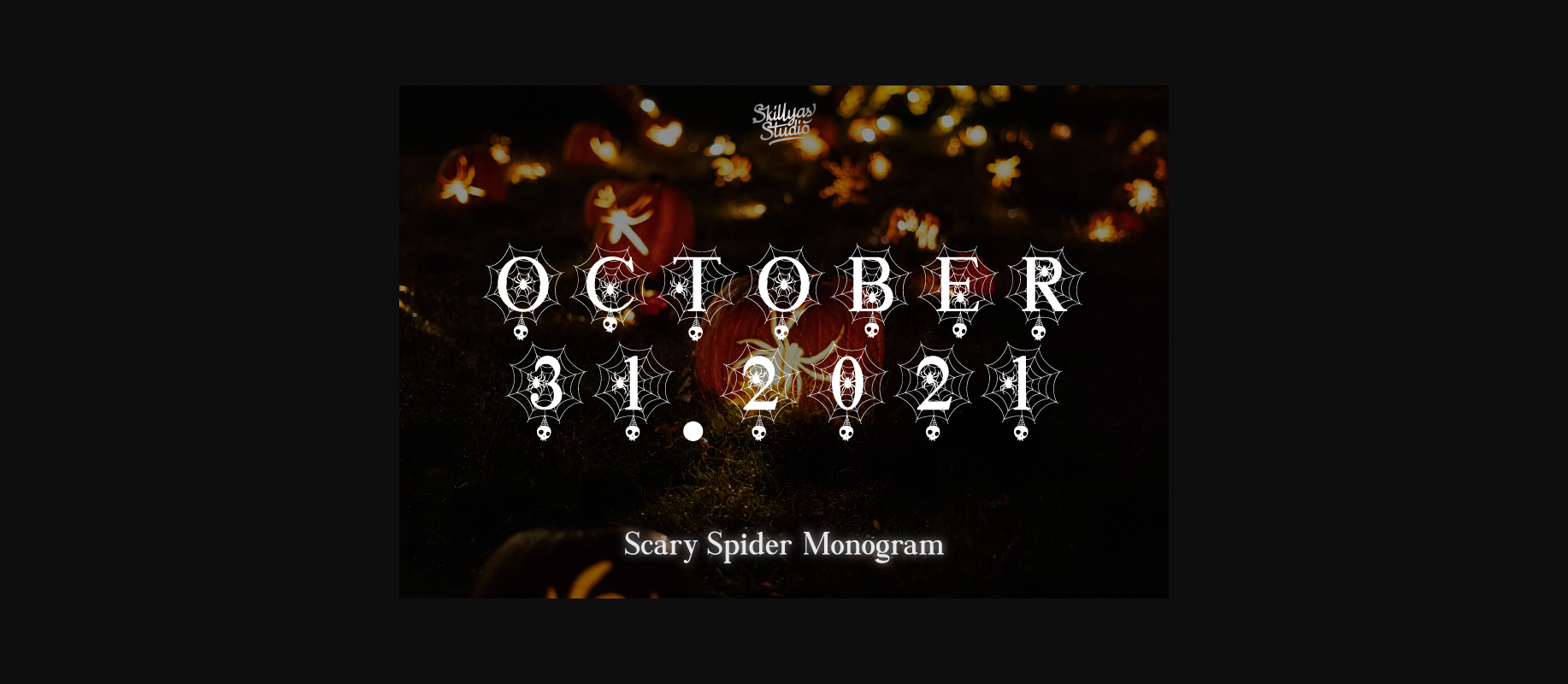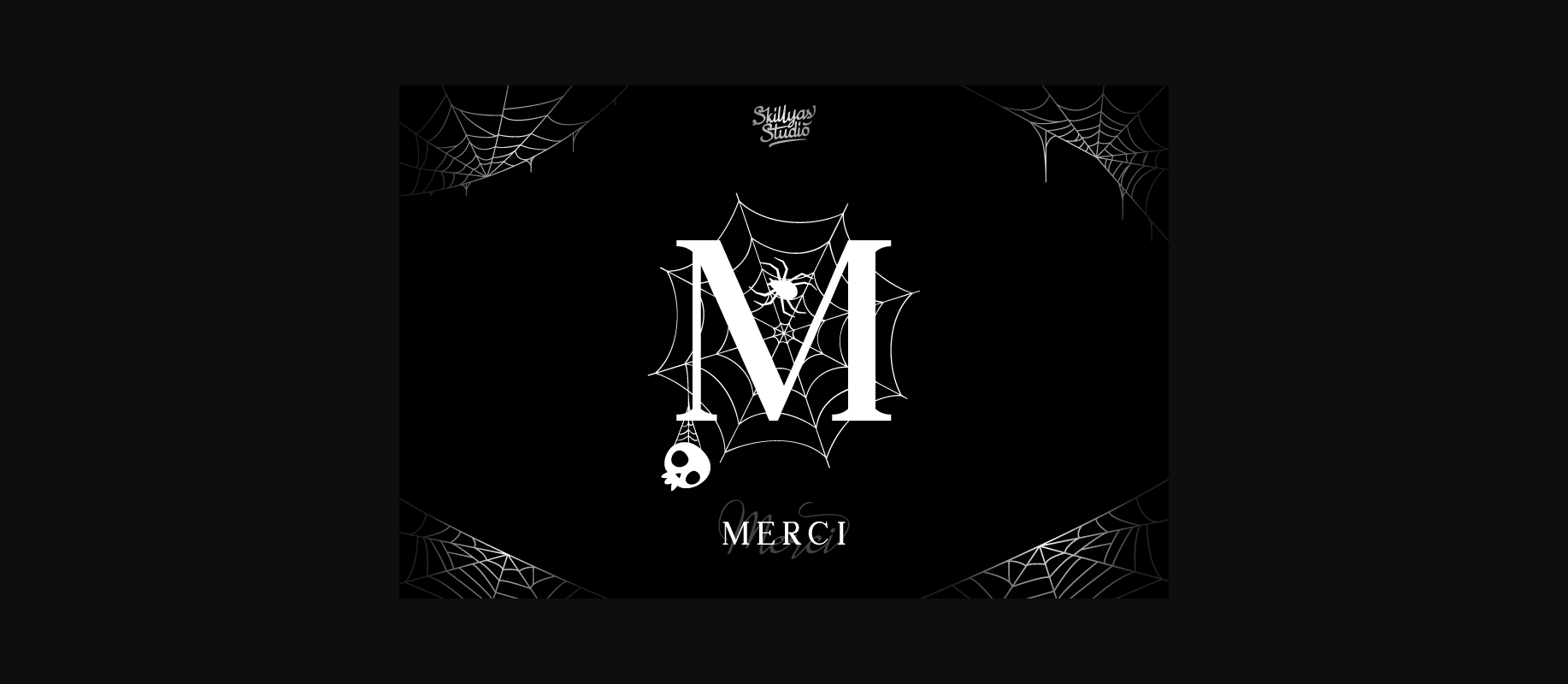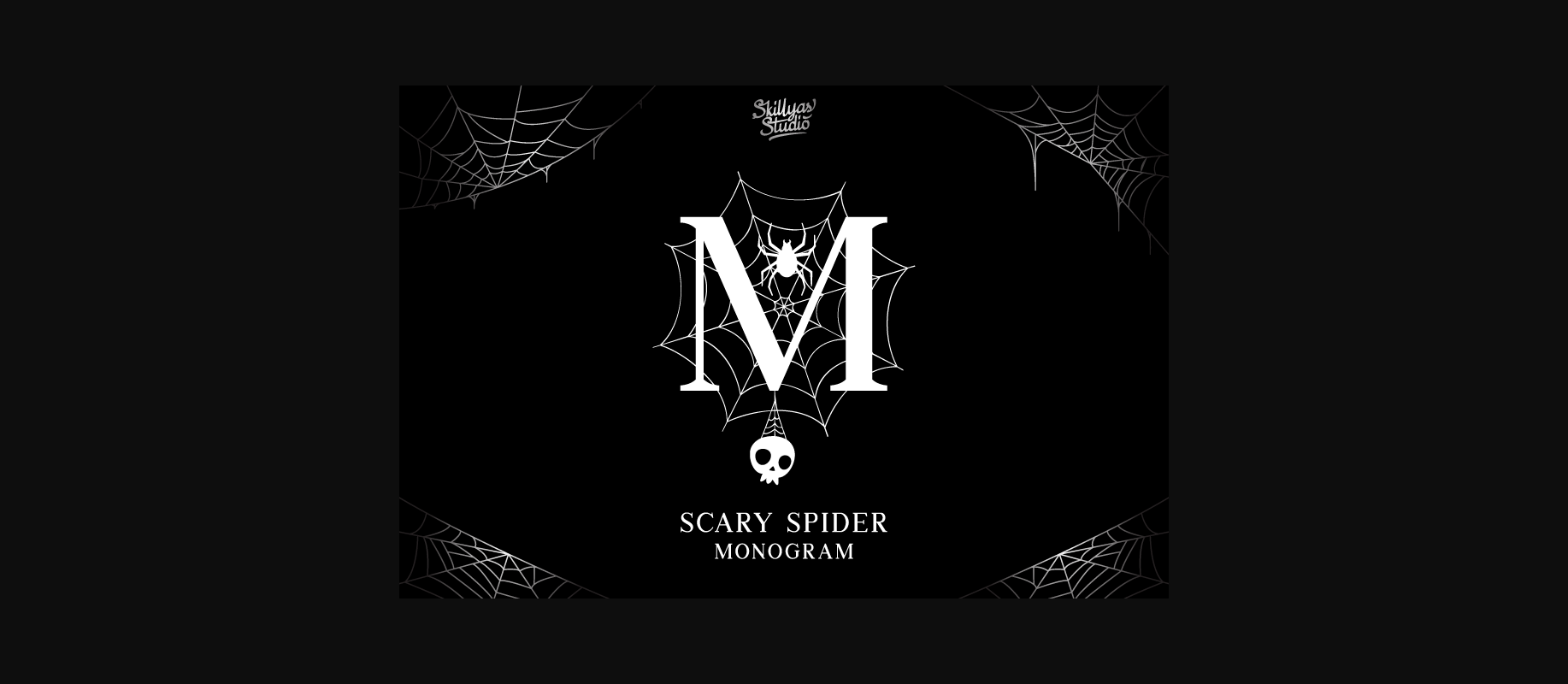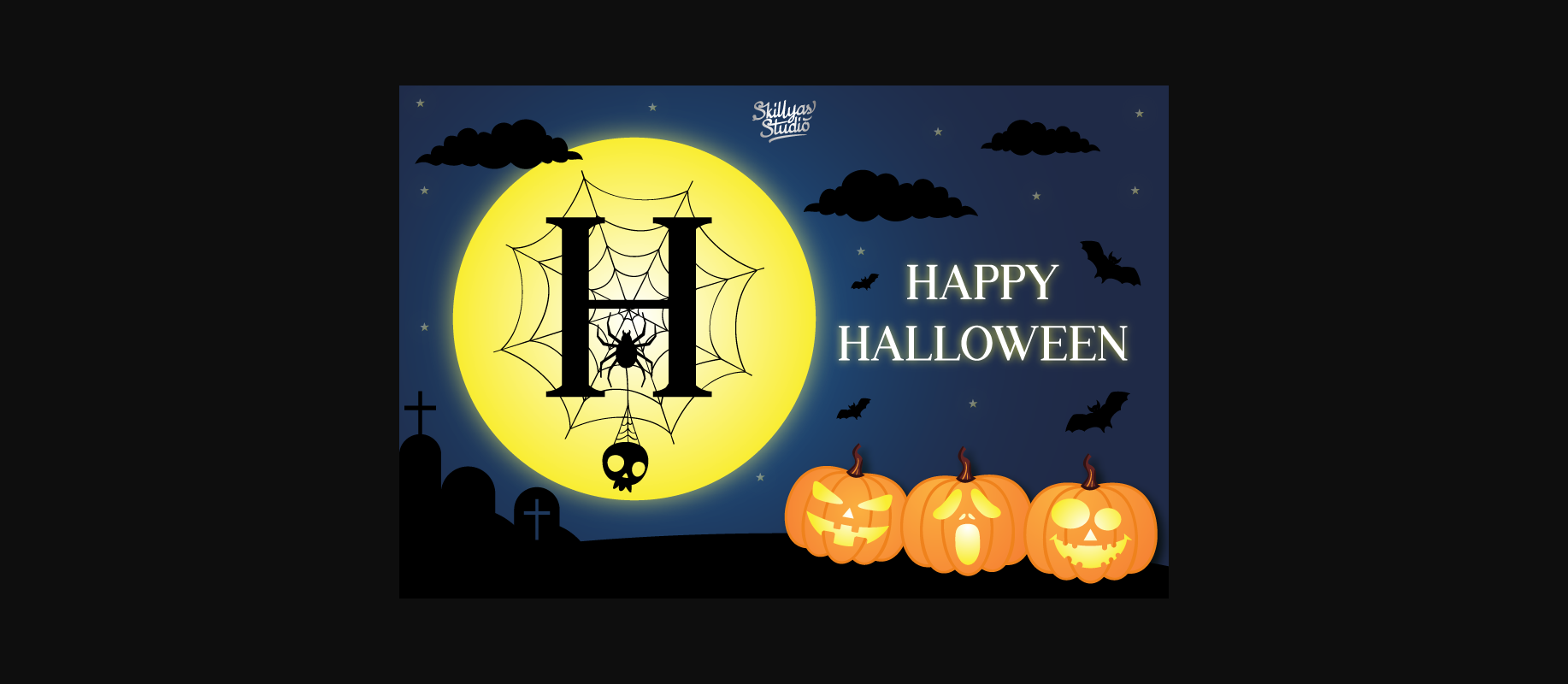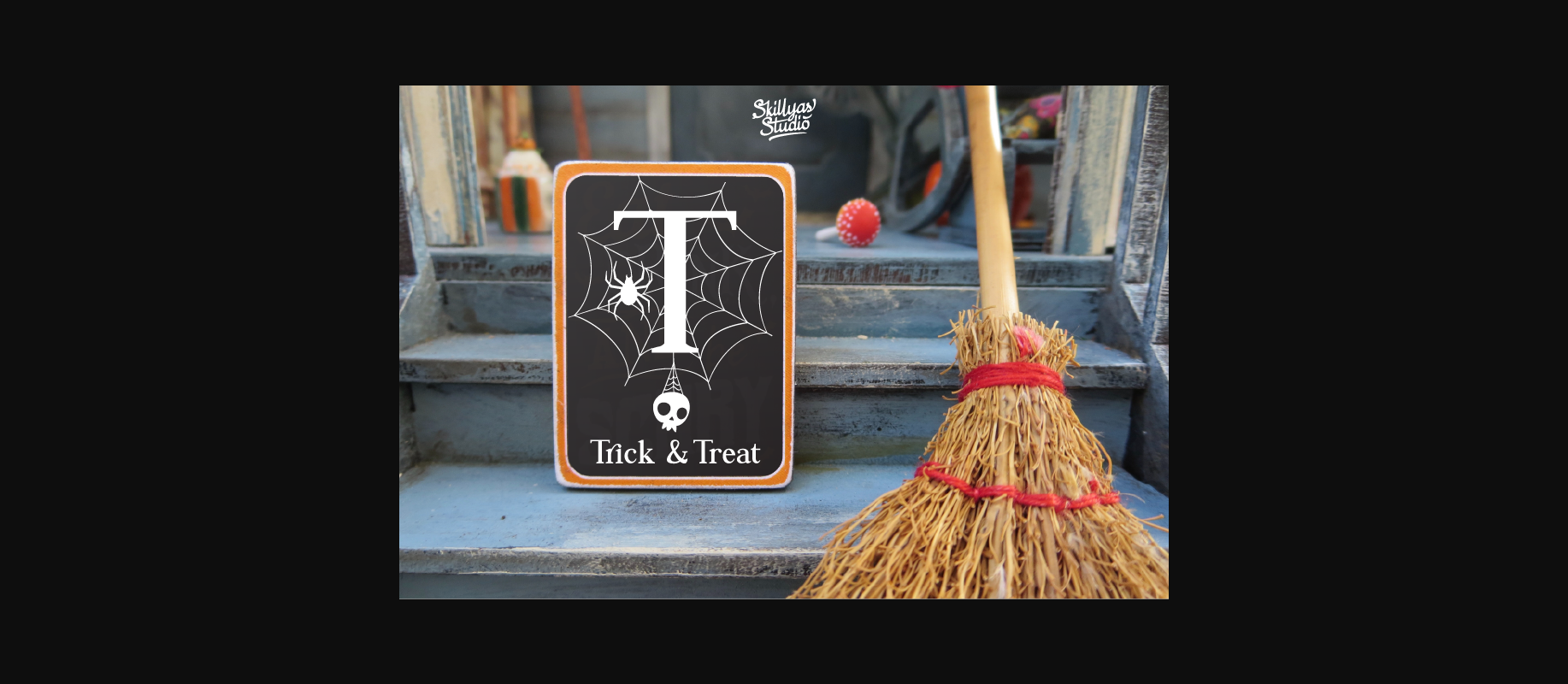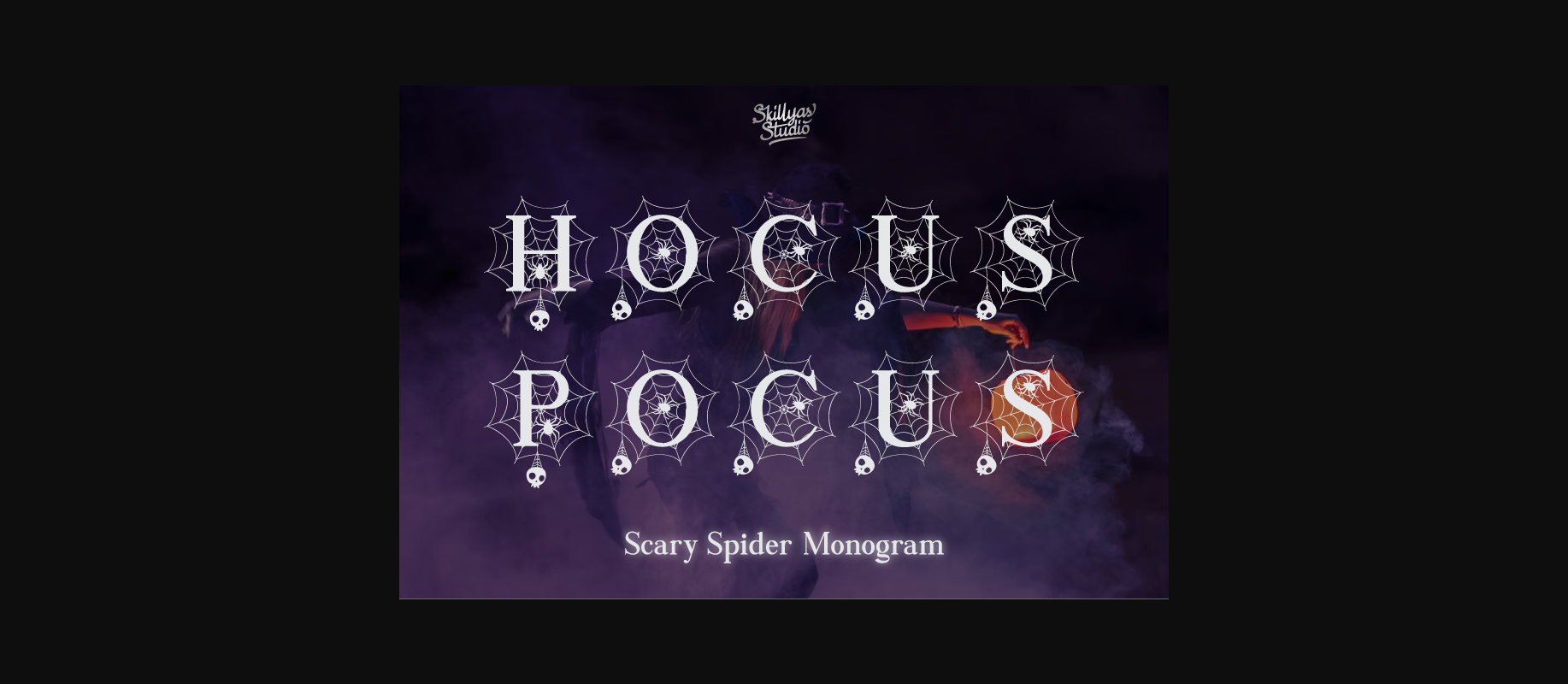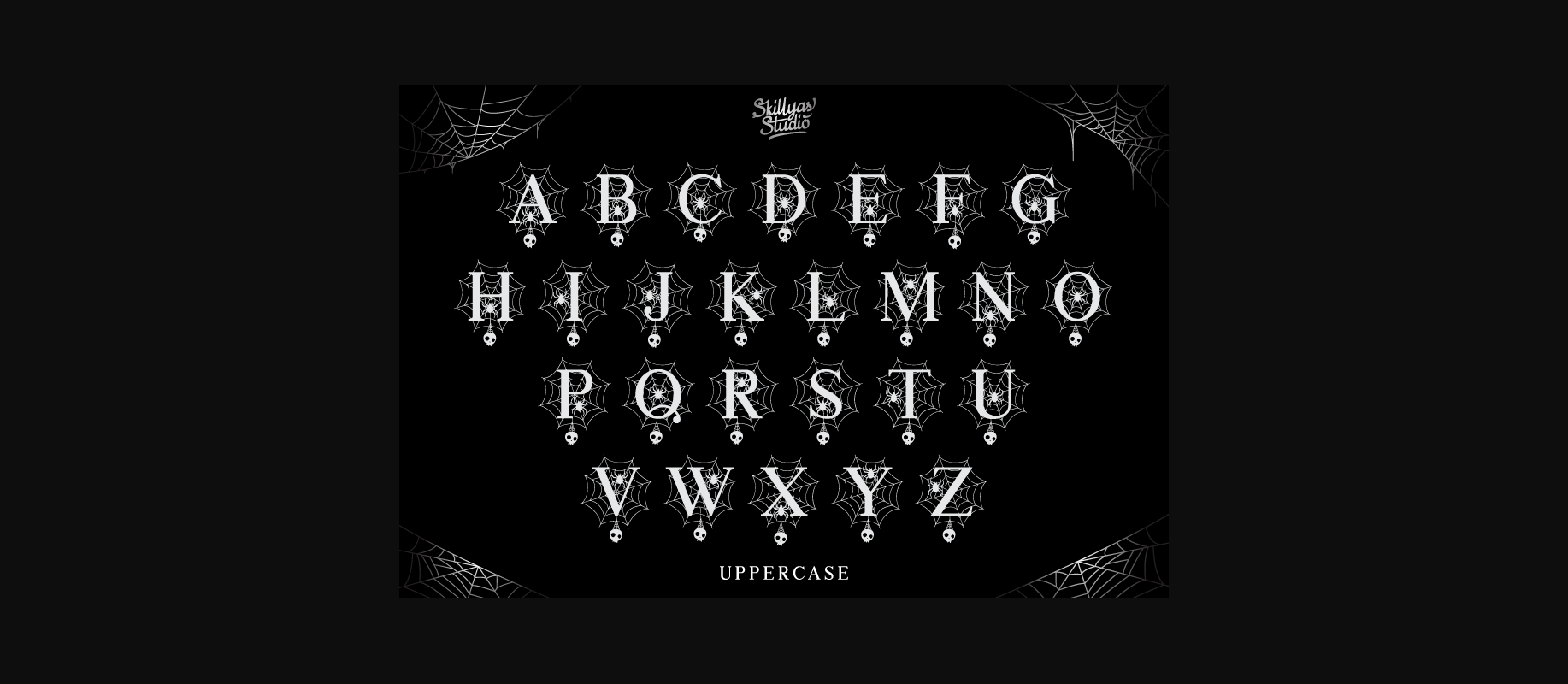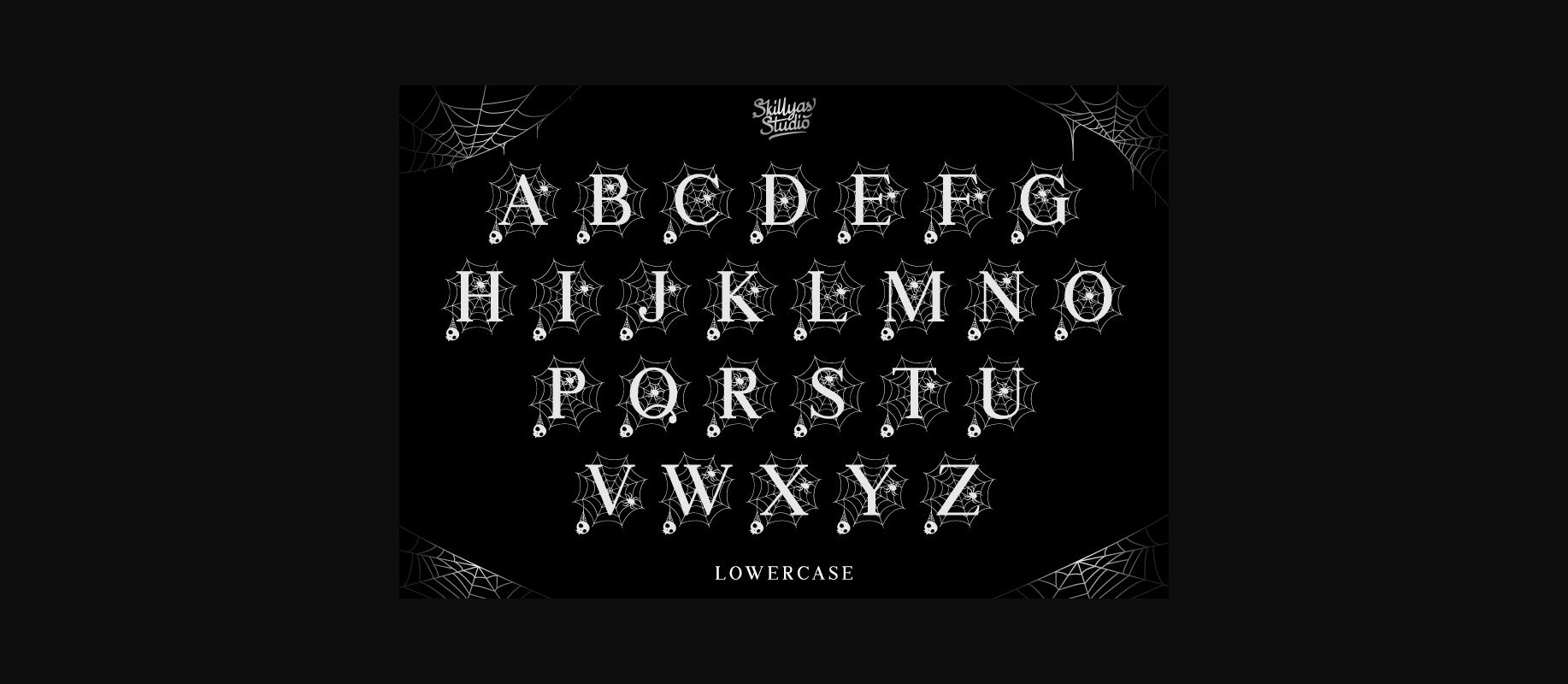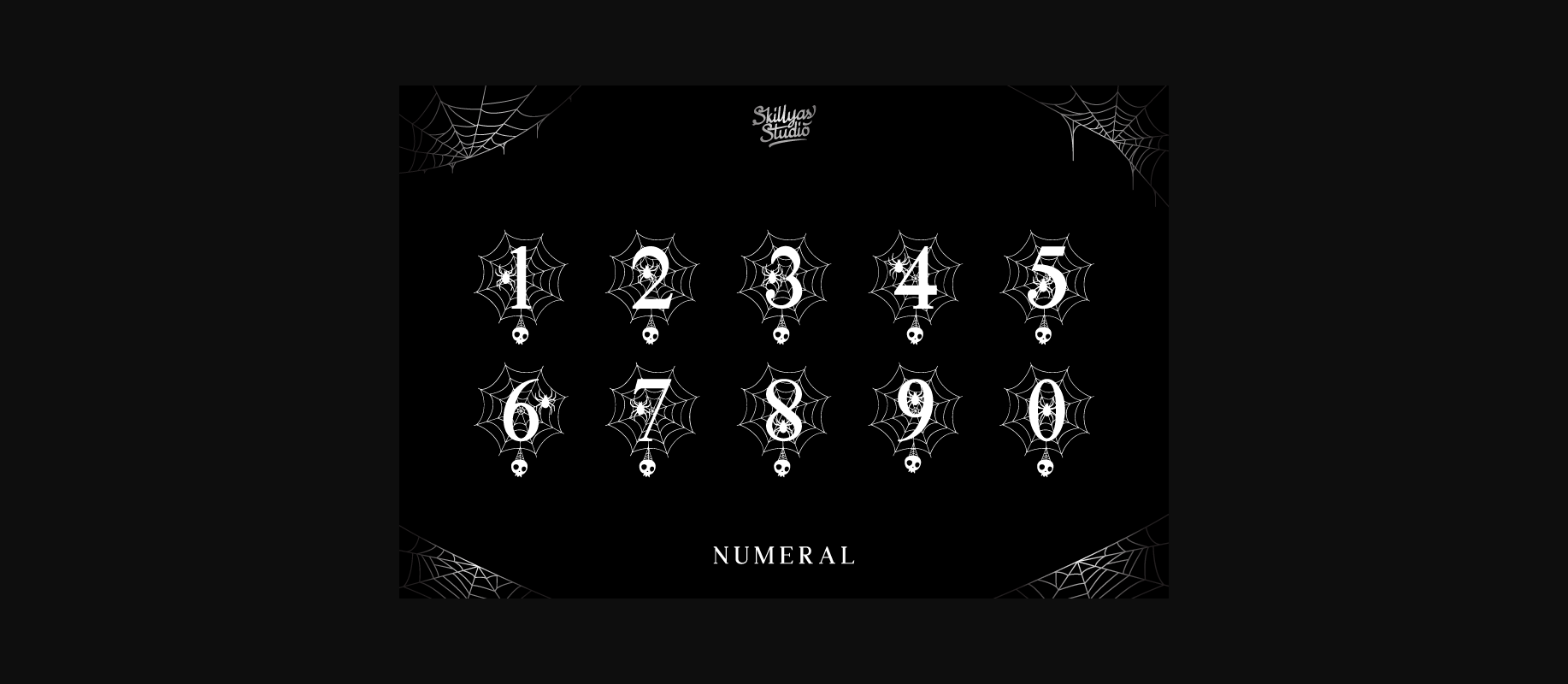
Scary Spider Monogram Font
About Scary Spider Monogram Font
Scary Spider Monogram is a unique and spooky decorative font.
Add it to each of your awesome Halloween designs and make them stand out!